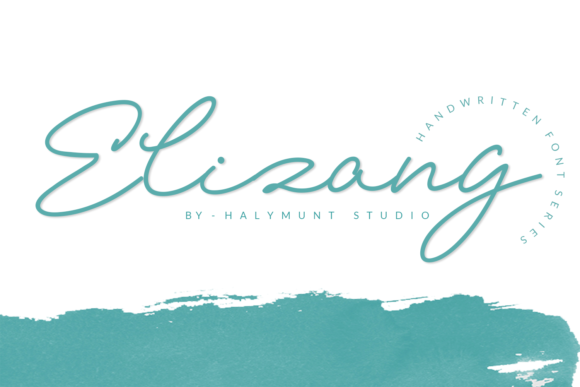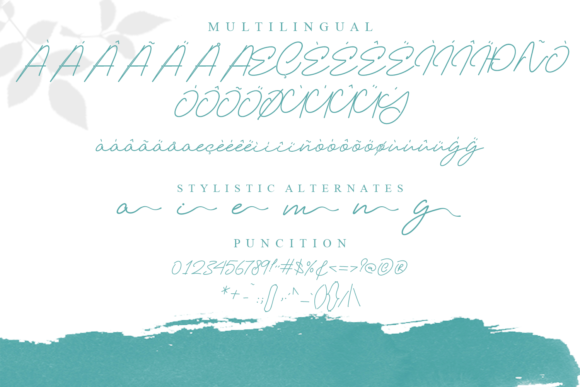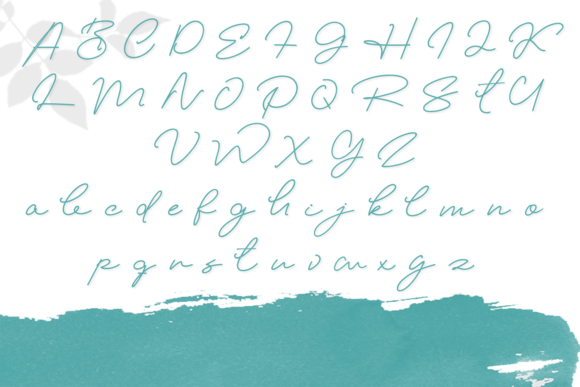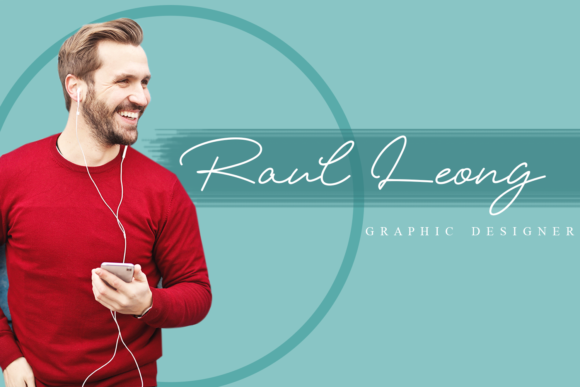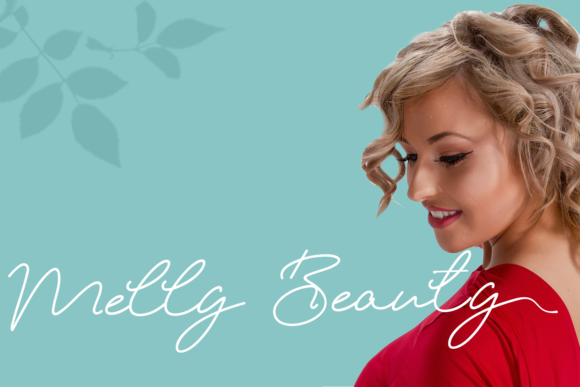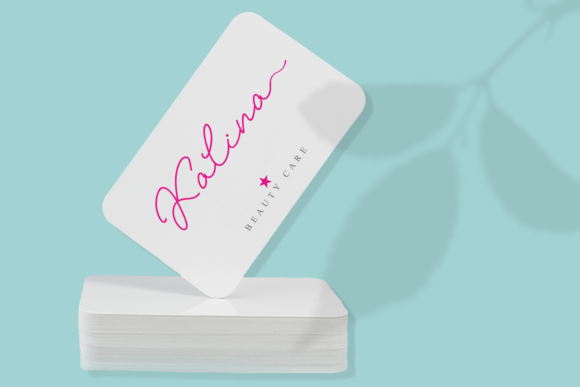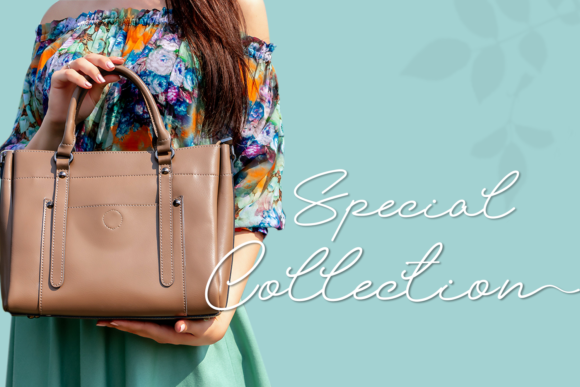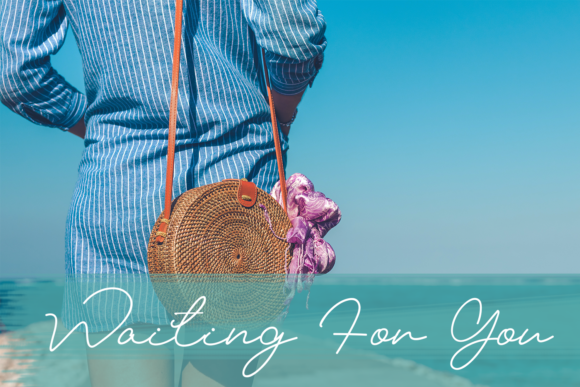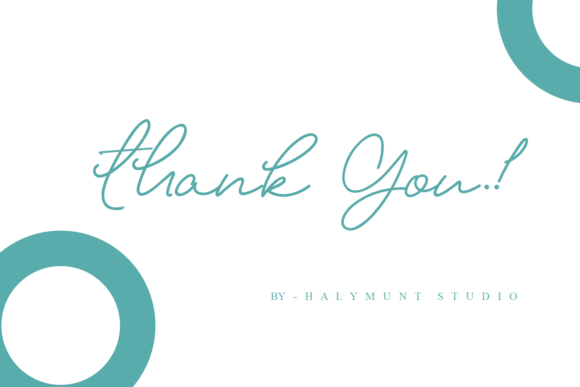
Elizany Font
About Elizany Font
Elizany features an incredibly luxurious and sophisticated style that will perfectly translate into any design project.